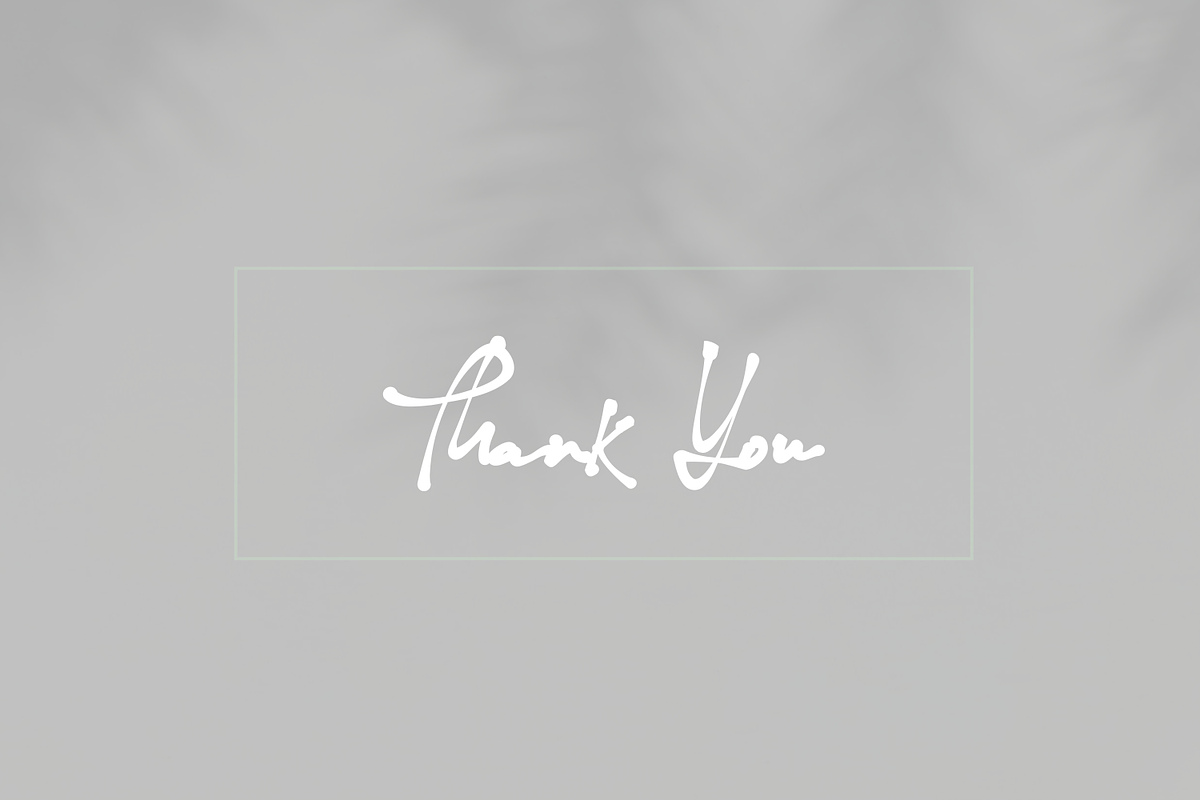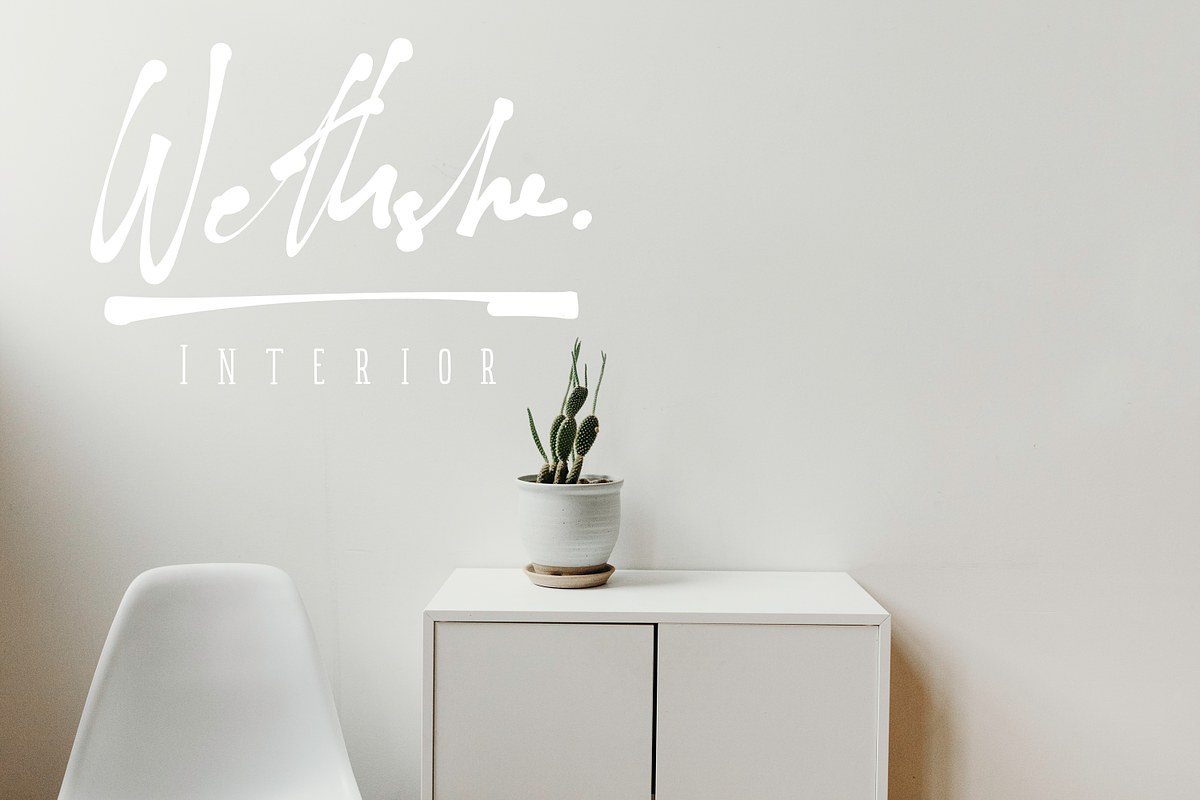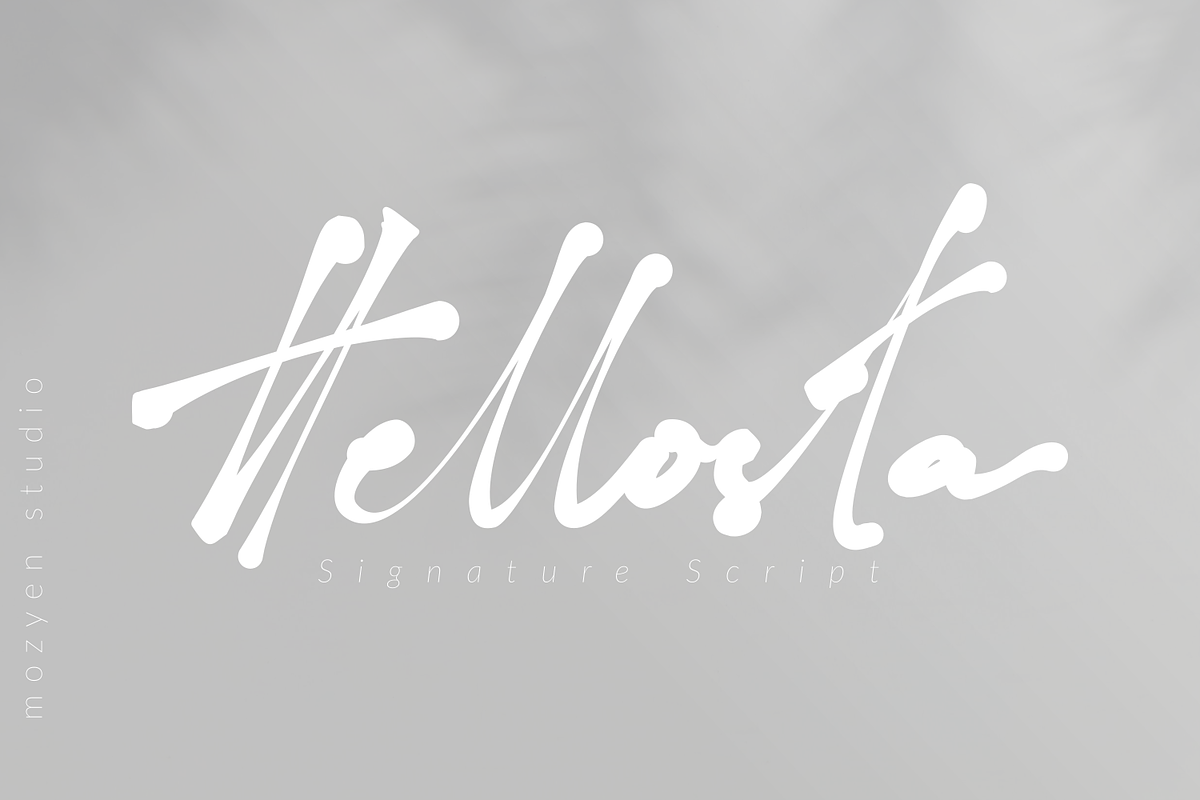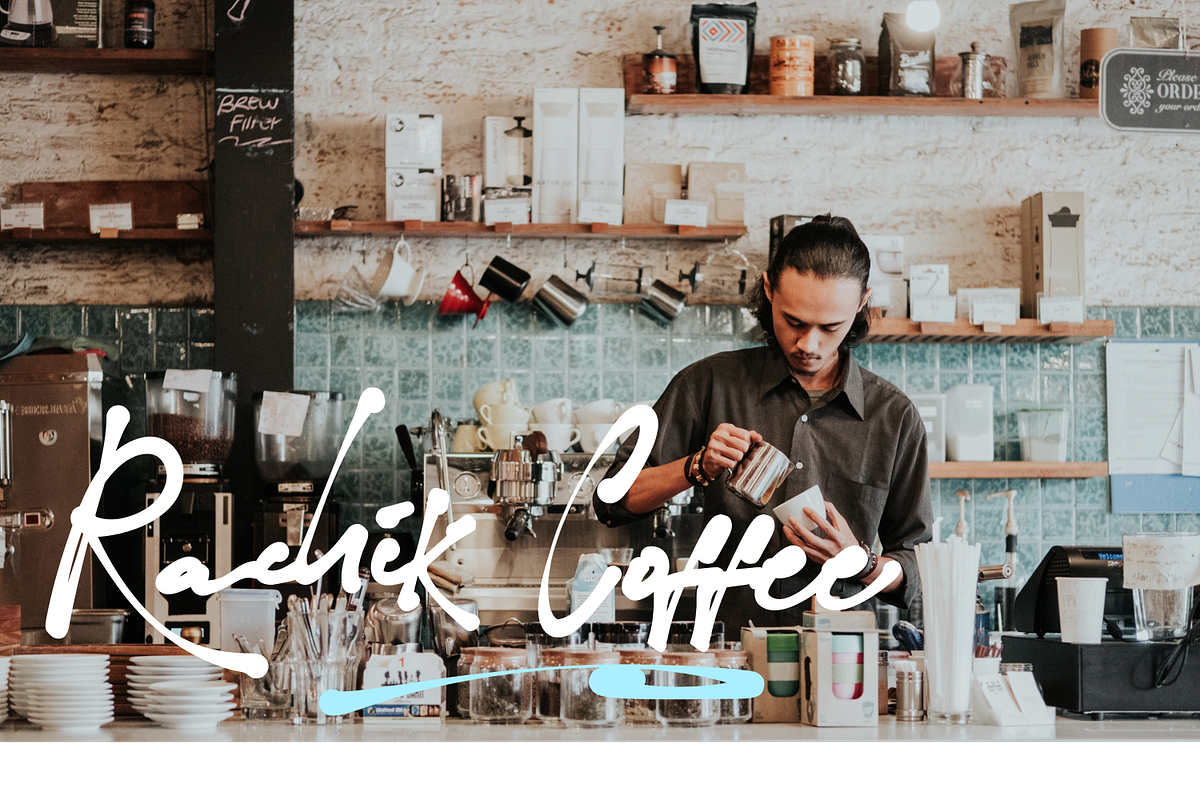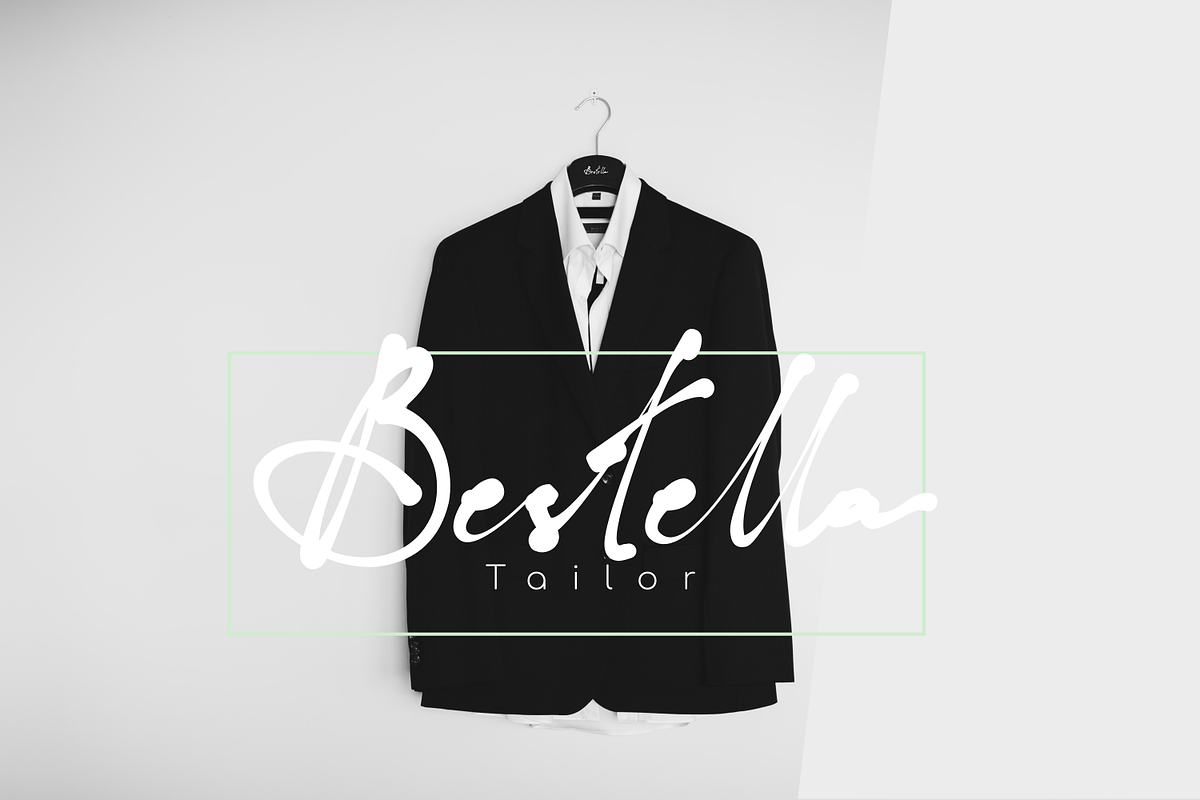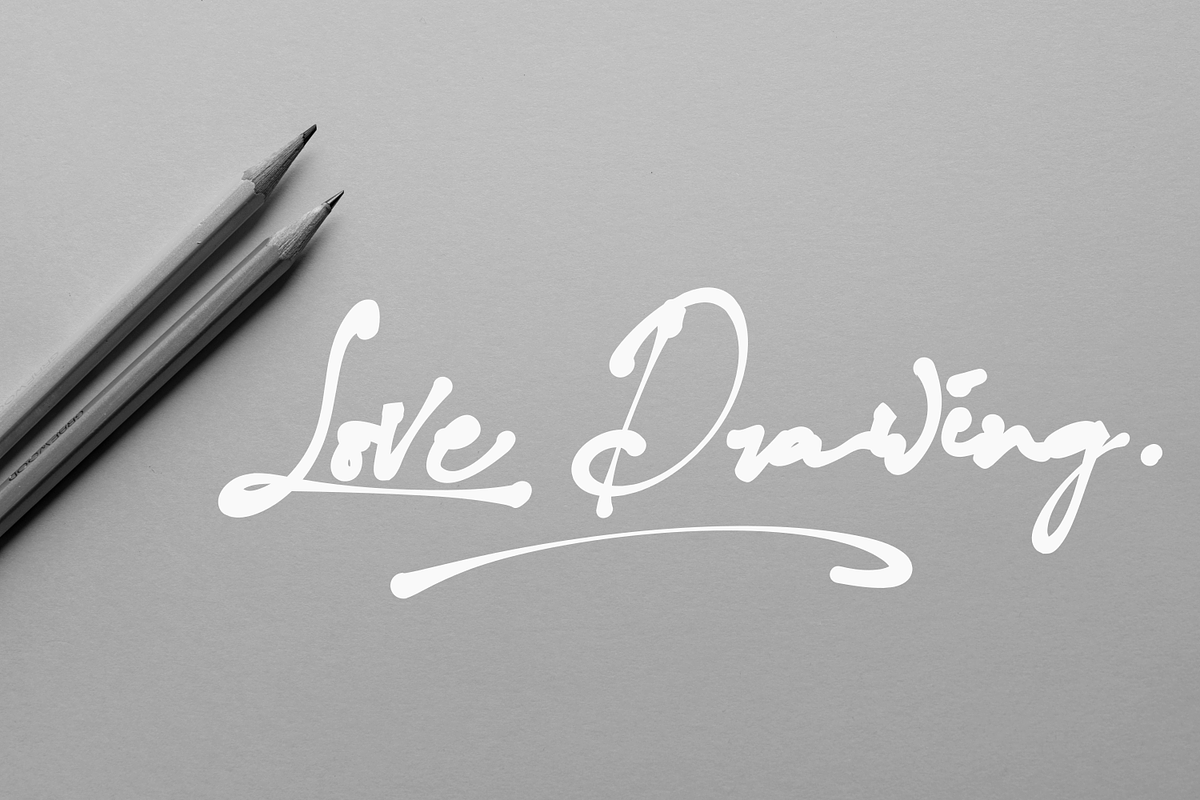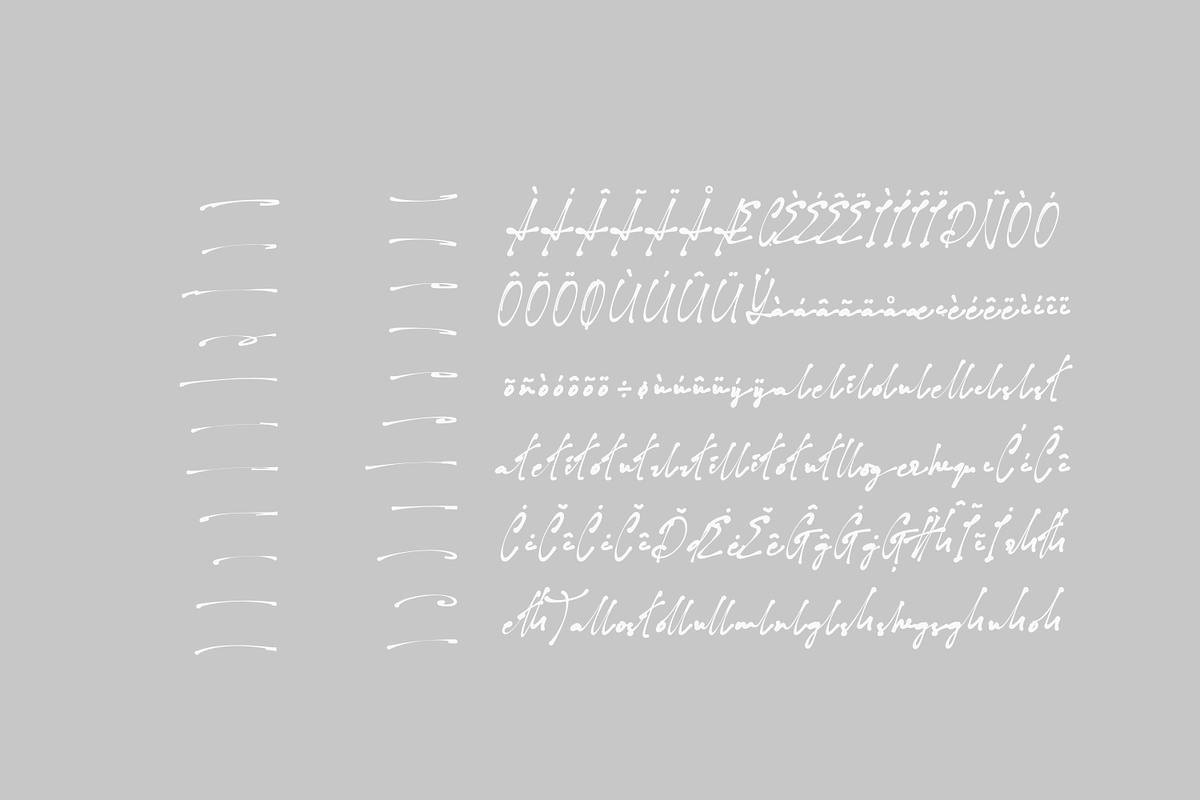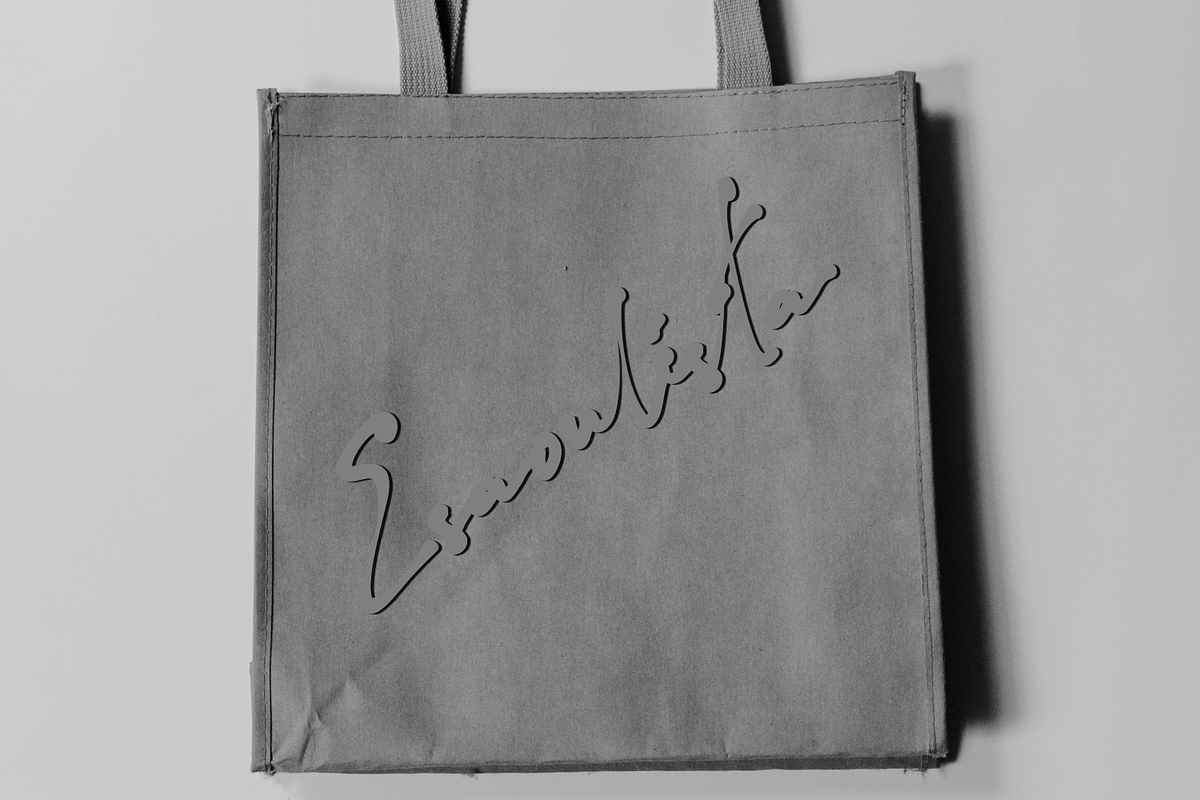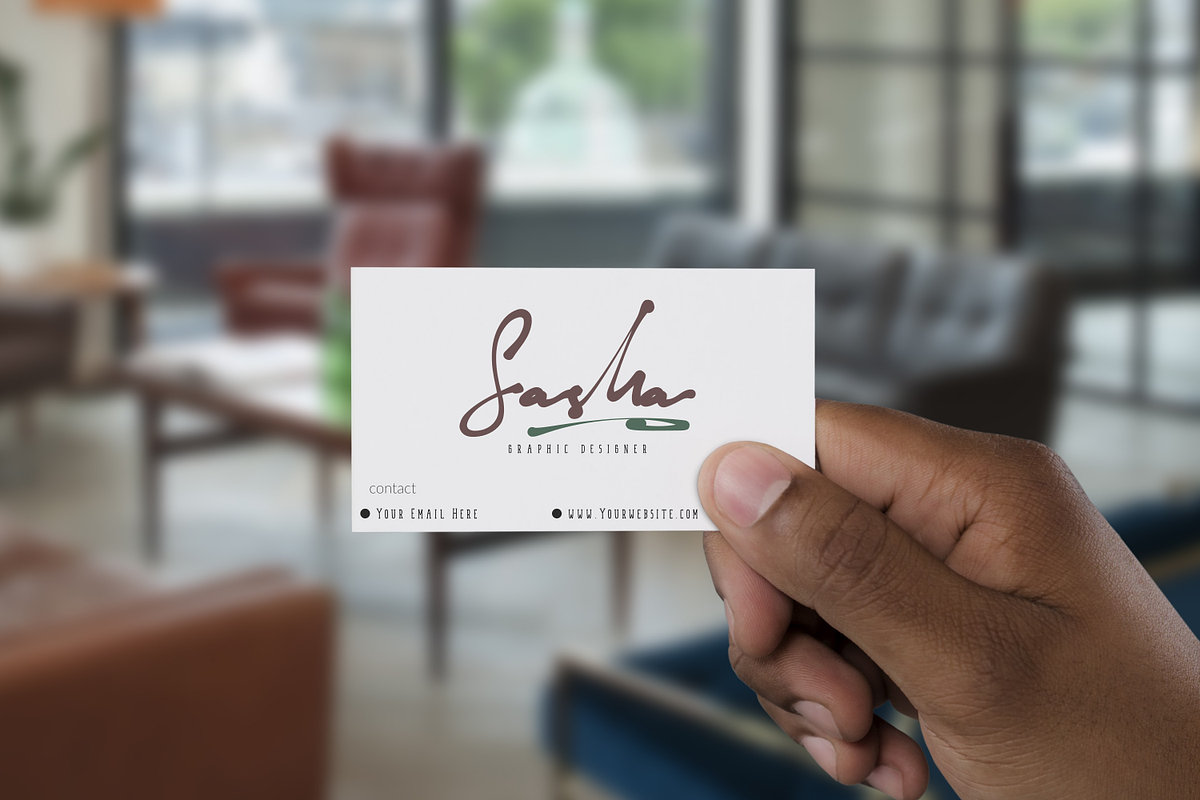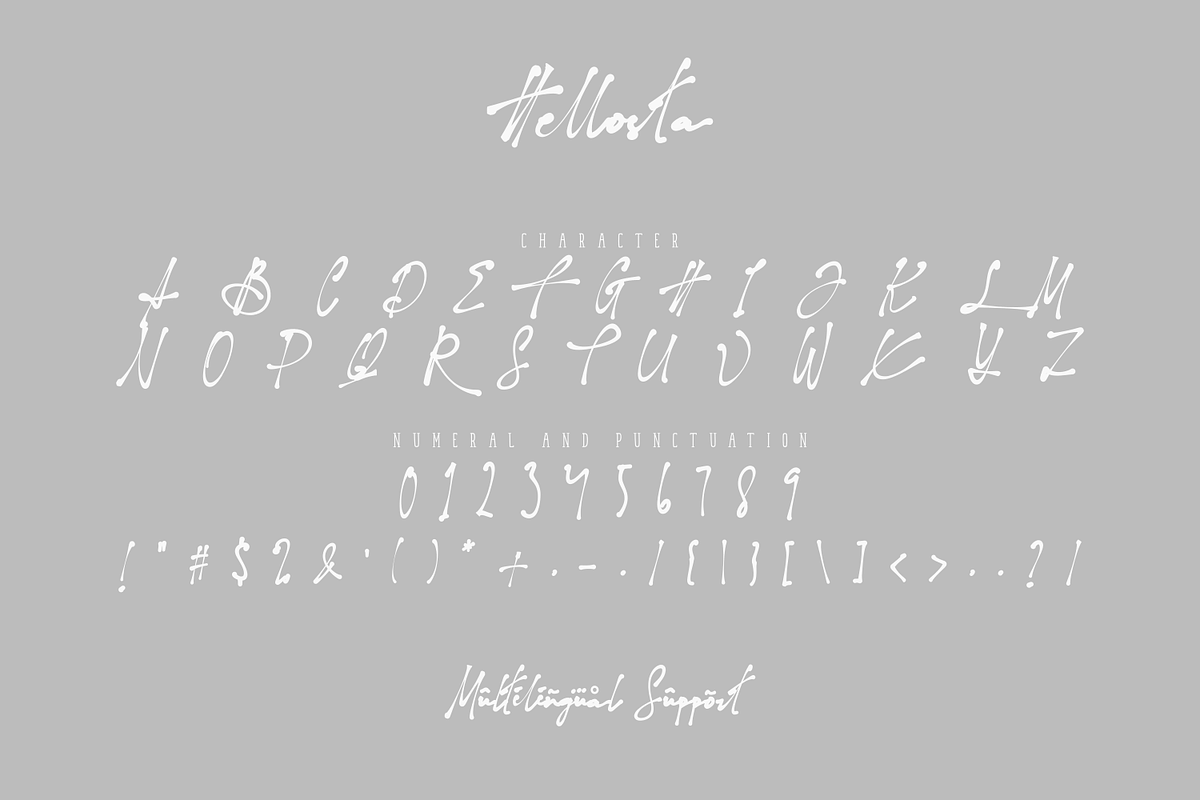
Hellosta
We Introduce “Hellosta” Signature Script. This is perfect for your feminine design, you can also make a branding such as cosmetics products, Branding photography, invitation designs or your trademark.
-Uppercase
-Lowercase
-Numeral and punctuation
-Multilingual support
-Stylistic ligature : al, el, il, ol, el, el, sl, st, at, et, it, ot, ut, rl, rt, ill, ll, og, er, he, qu, rh, th, eth, all, ost, oll, ull, ml, nl, gl, sh, she, gh, uh, oh
-Swashes on PUA encoded.